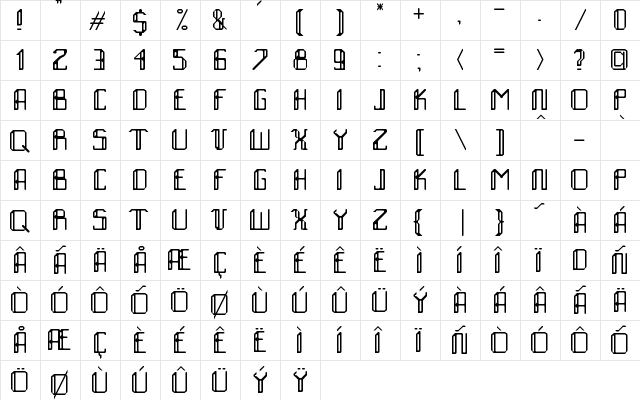
xdlol with more letters. Regular
| Designer | E. Mars |
Design Context for xdlol with more letters. Typeface
xdlol with more letters. takes a measured approach to typography — its balanced proportions and neutral character make it a reliable workhorse for both digital and print work.